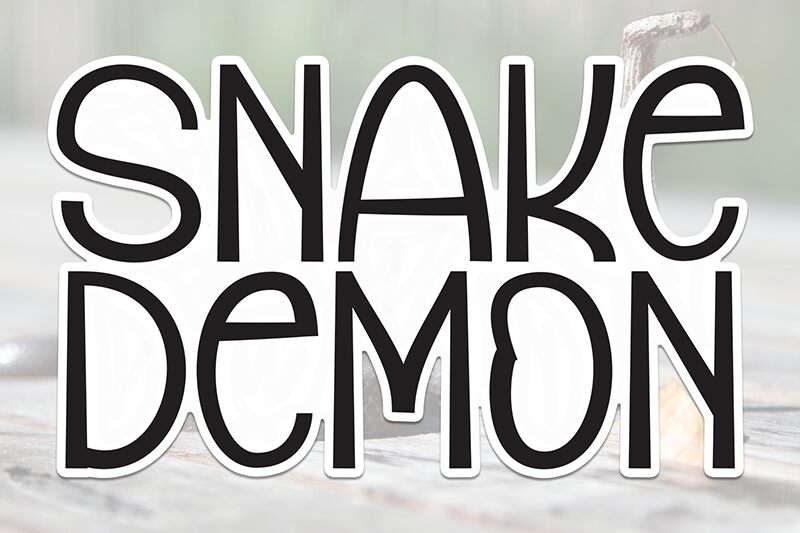
Snake Demon
Snake Demon font, designed by Andi Moz, is a free display font with gothic influence that radiates an edgy appearance. Stylish and terrifying, this font includes curved elements and sharp elongated shapes. Mysterious yet mesmerizing, this scary font set will capture your target audience’s attention as you’ve never expected before.
Curvy decorations with elongated forms make Snake Demon appeal for horror displays, wearables, video games branding, books covers, video production projects titles and displays addition to all other Halloween-related projects. It’s also fitting for tattoo designs and shop branding as demonstrated in another context by the author himself.